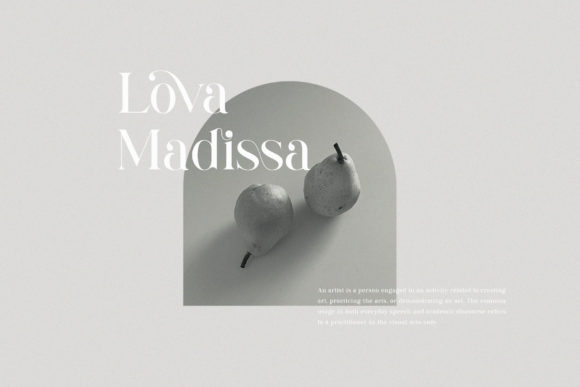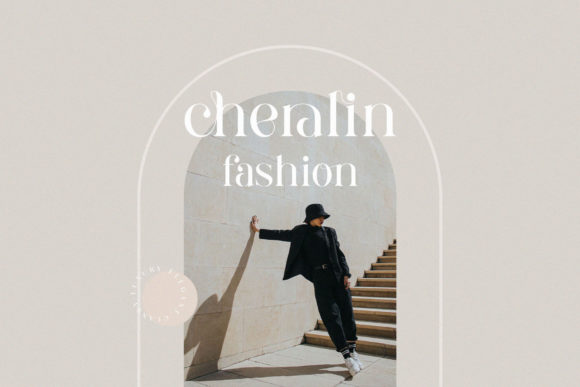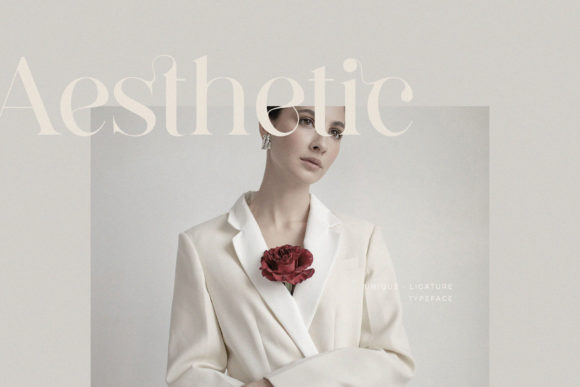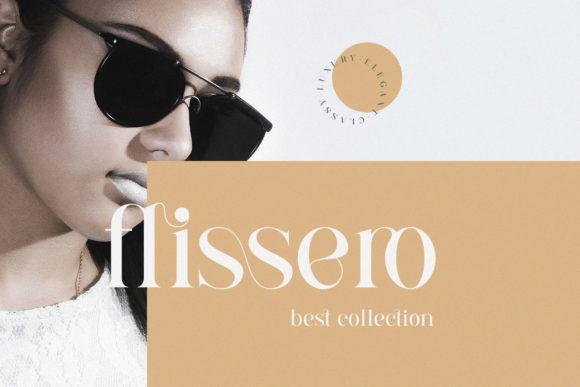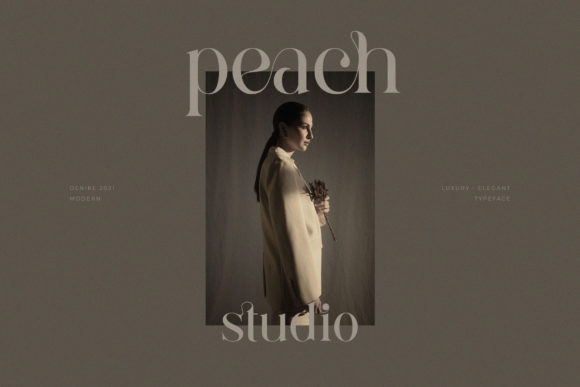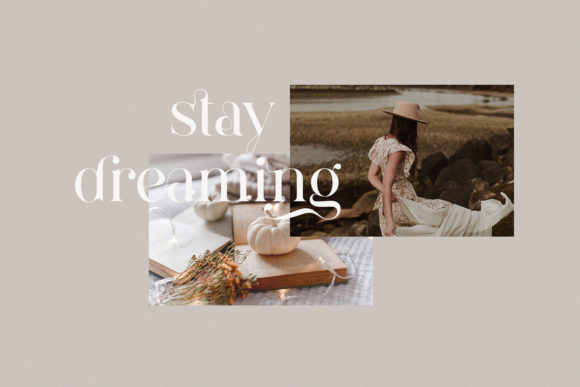
Introducing Denike Font: A Modern Serif Font for Bold and Elegant Designs
In the world of typography, fonts play a crucial role in conveying the tone and personality of a brand or design. For designers and crafters looking for a font that exudes confidence and sophistication, Denike Font is an excellent choice. This modern serif font features bold and elegant characters that are sure to make a statement in any design project.
What Makes Denike Font Stand Out?
Denike Font is a versatile typeface that boasts a strong look and fierce personality. Its modern serif design makes it perfect for a wide range of applications, from traditional print materials to digital platforms. Whether you’re working on a newspaper, book cover, banner, business card, or marketing campaign, Denike Font is a great choice.
Key Features of Denike Font
- Modern Serif Design: Denike Font features a sleek and contemporary serif design that gives it a unique edge.
- Bold and Elegant Characters: The font’s characters are bold, yet elegant, making it perfect for designs that require a touch of sophistication.
- Versatile: Denike Font can be used for a wide range of applications, including newspapers, book covers, banners, business cards, marketing, and more.
- Easy to Read: Despite its bold design, Denike Font is easy to read, making it perfect for body text and headlines.
Uses of Denike Font
Denike Font is a versatile typeface that can be used for various design projects. Here are some of the most popular uses of this font:
Print Materials
- Newspapers: Denike Font is perfect for newspaper headlines and body text, thanks to its bold and easy-to-read design.
- Book Covers: The font’s elegant and sophisticated design makes it a great choice for book covers, especially for fiction and non-fiction books.
- Banners: Denike Font is a great choice for banners, whether you’re promoting a sale, event, or product.
- Business Cards: The font’s bold and elegant design makes it perfect for business cards, helping you make a great first impression.
Digital Platforms
- Marketing Campaigns: Denike Font is a great choice for marketing campaigns, including social media ads, email marketing, and more.
- Websites: The font’s modern serif design makes it perfect for websites, especially for headlines and titles.
Tips for Using Denike Font
To get the most out of Denike Font, here are some tips to keep in mind:
Pair it with Other Fonts
Denike Font can be paired with other fonts to create a unique and visually appealing design. Try pairing it with a sans-serif font for a contrasting look.
Use it for Headlines and Titles
Denike Font is perfect for headlines and titles, thanks to its bold and elegant design. Use it to grab attention and make a statement.
Experiment with Colors and Sizes
Don’t be afraid to experiment with different colors and sizes when using Denike Font. Try different color combinations and font sizes to create a unique design.
In conclusion, Denike Font is a modern serif font that features bold and elegant characters. Its strong look and fierce personality make it a great choice for a wide range of design projects, from newspapers and book covers to banners and marketing campaigns. With its versatility, ease of use, and bold design, Denike Font is a must-have for designers and crafters looking to make a statement.